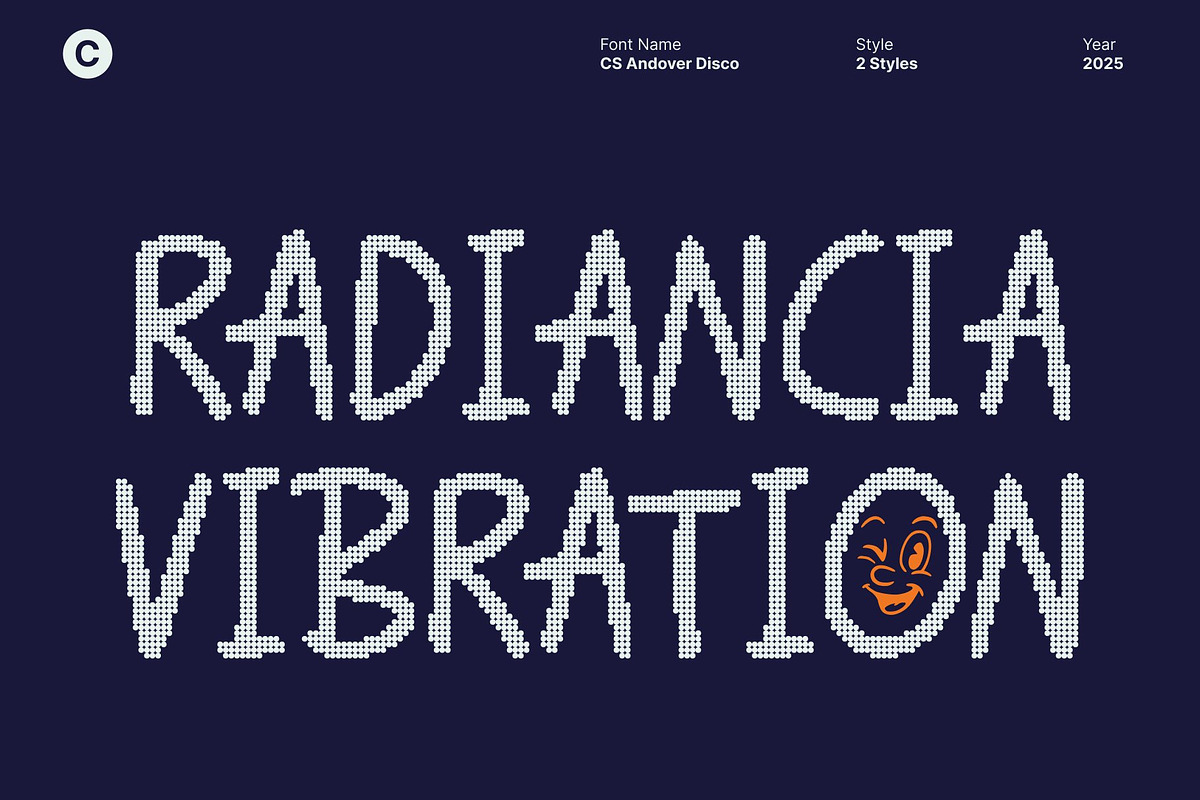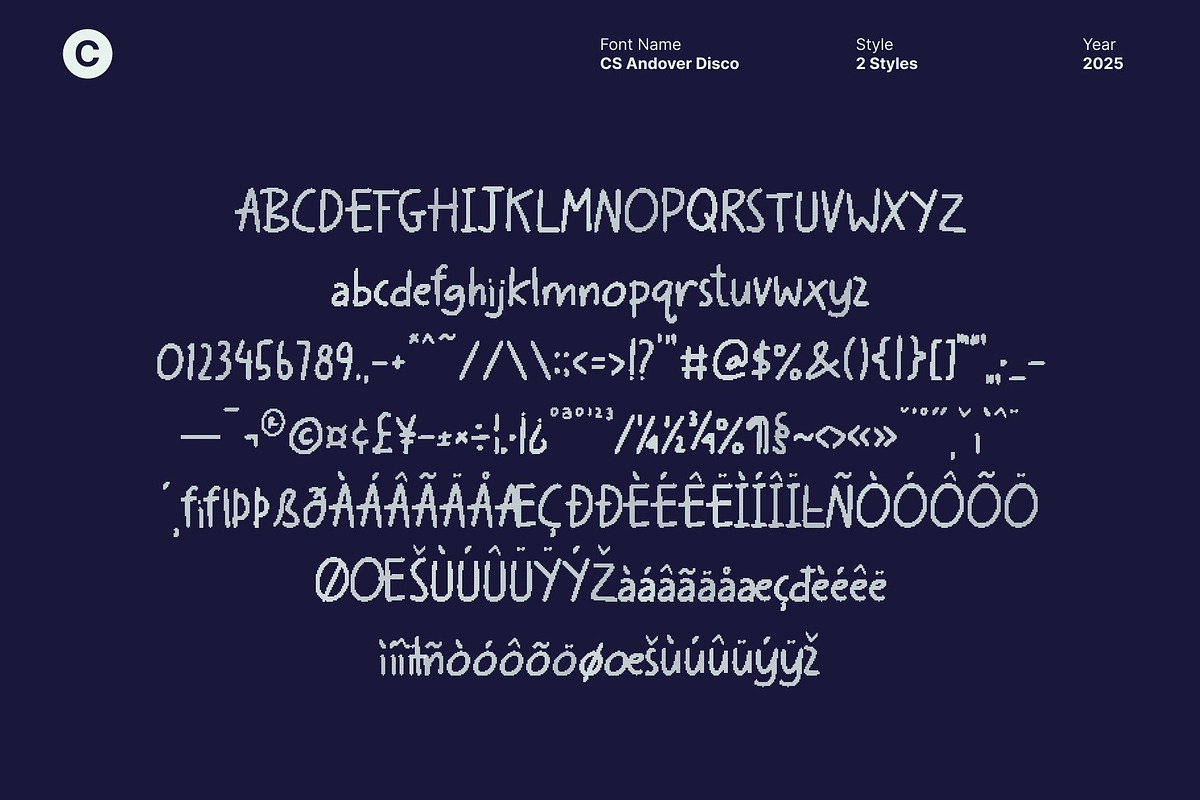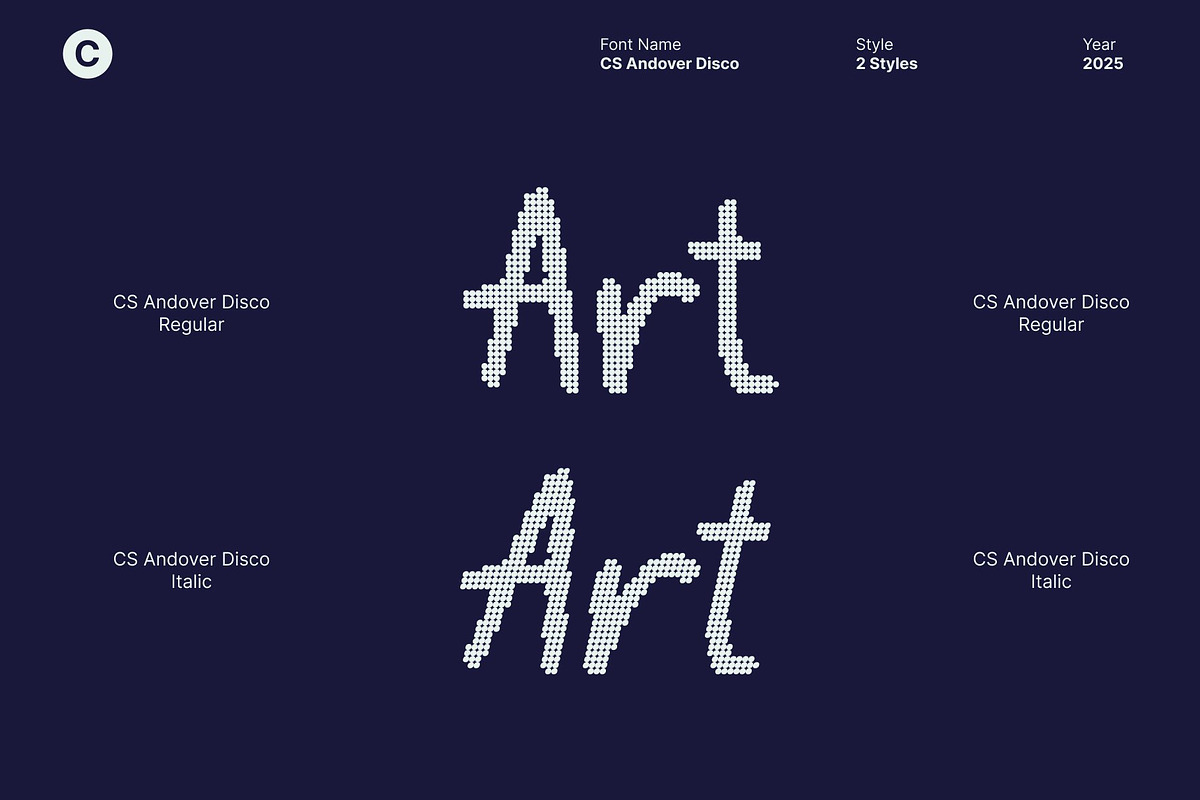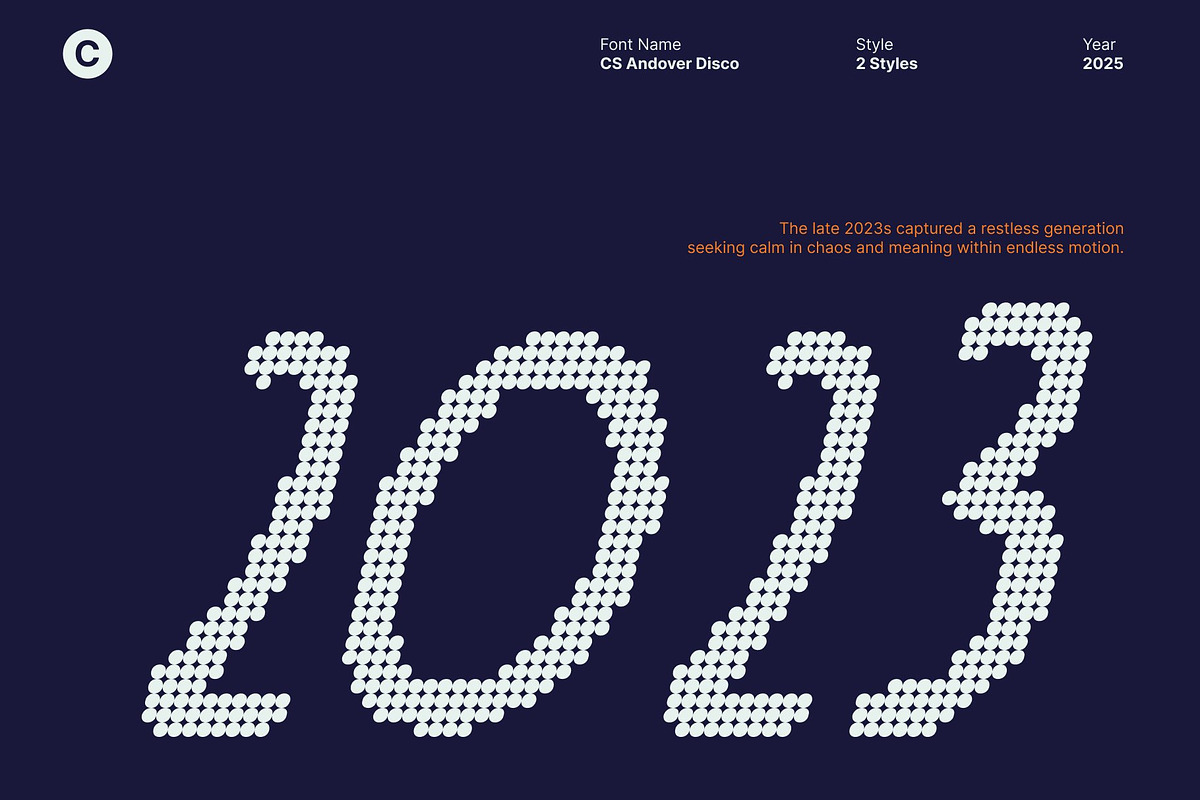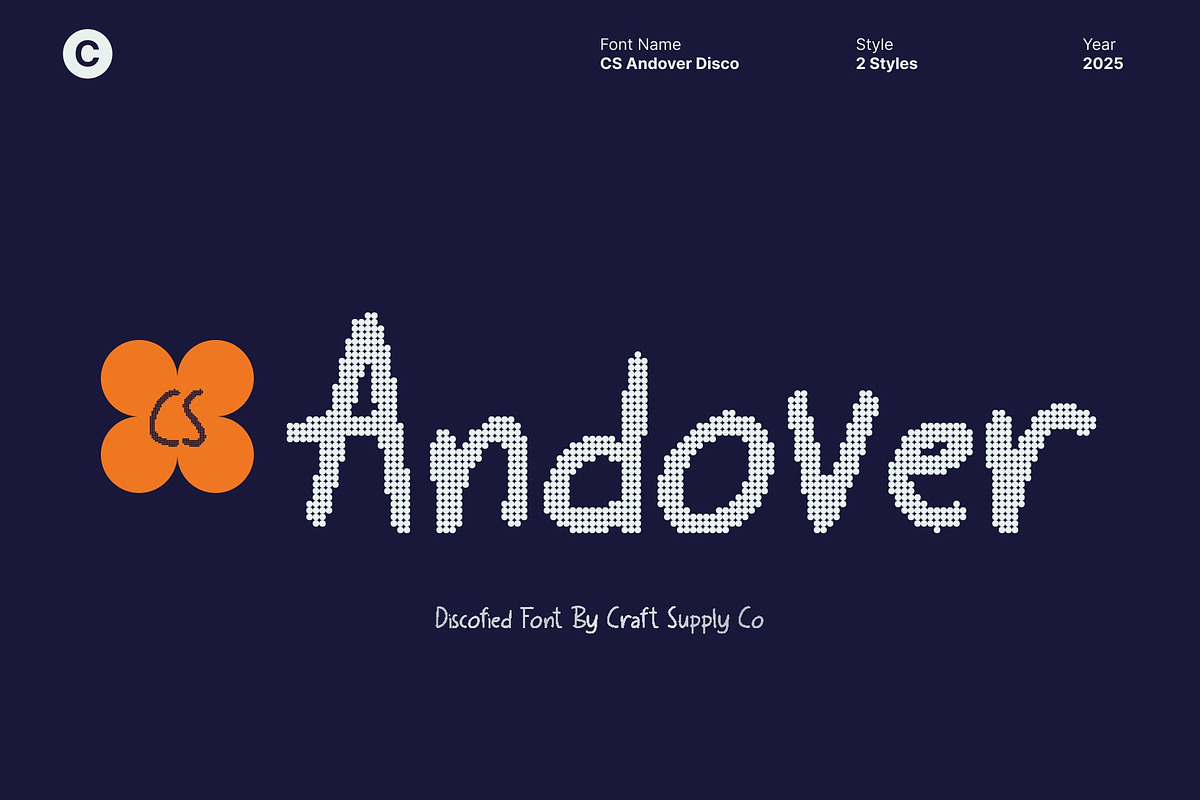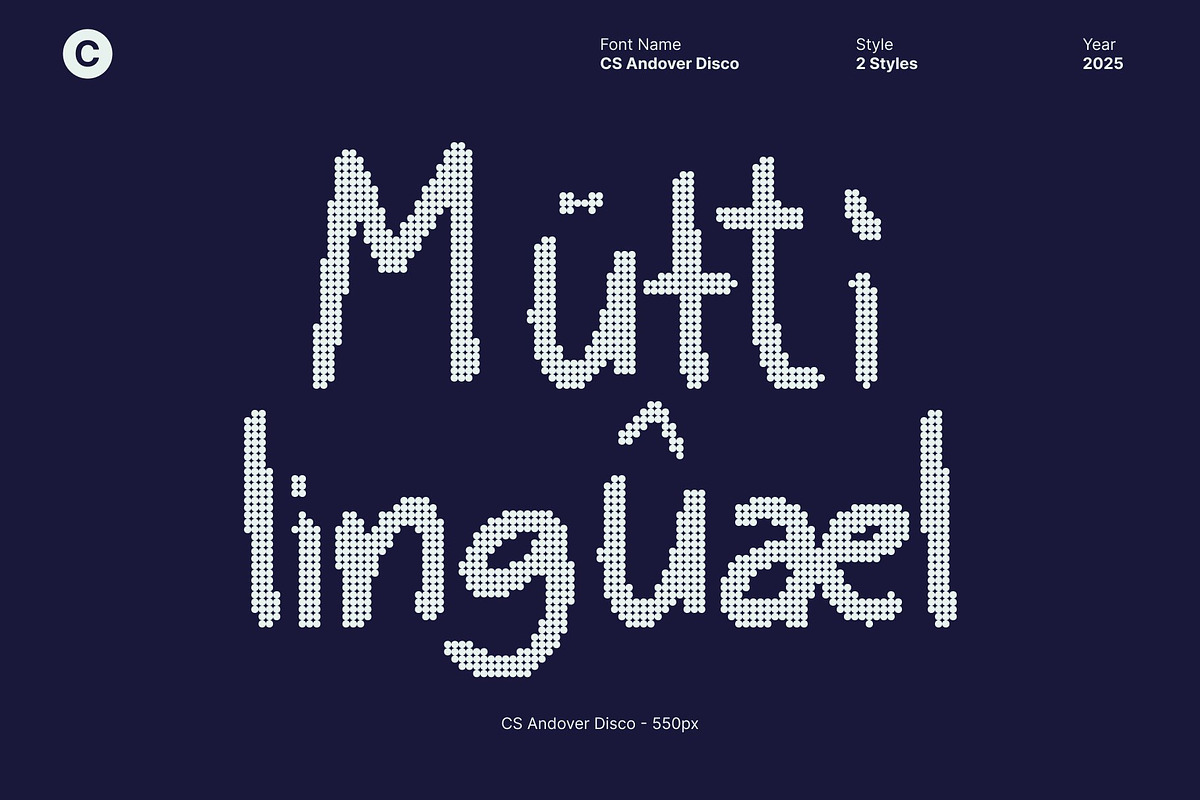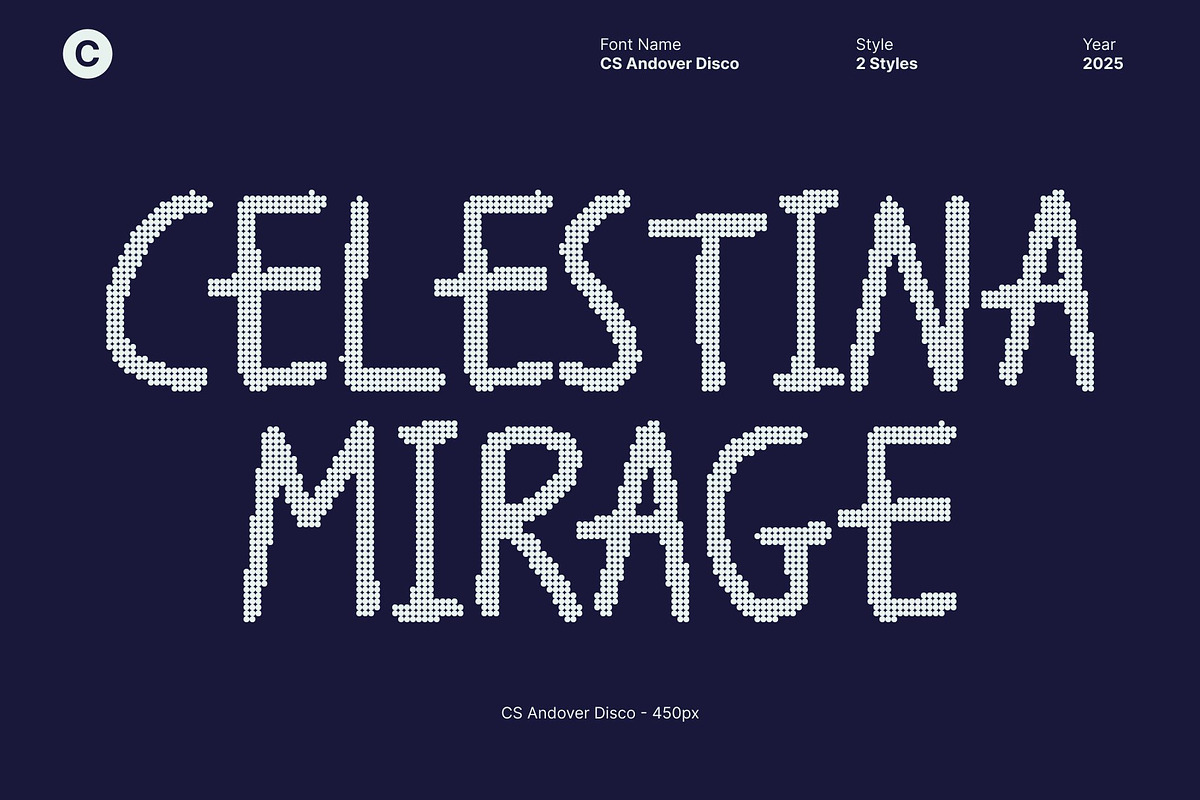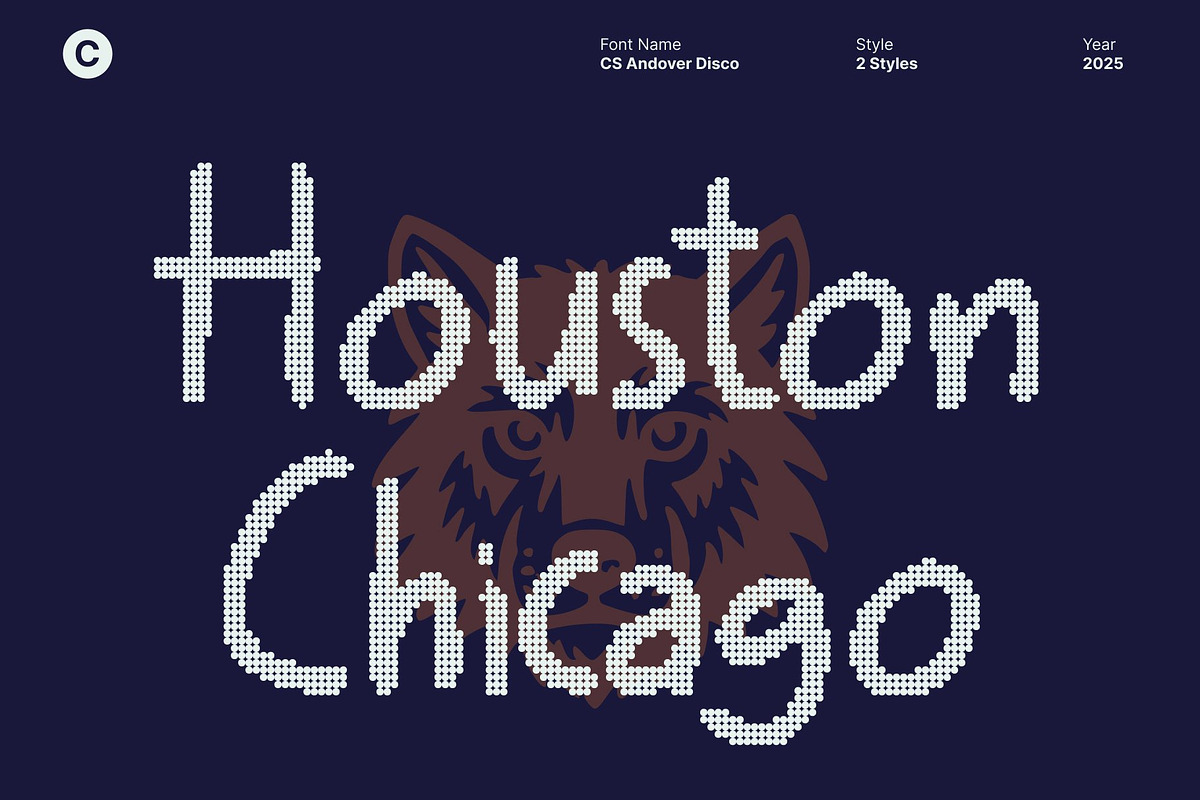
CS Andover Disco
CS Andover Disco – Handwritten Elegance with a Sparkling Touch
Expressive Handwritten Font with Disco Flair This combines natural sans serif handwritten beauty with a modern, shimmering twist. Its soft, flowing strokes capture the warmth and rhythm of authentic penmanship, while the disco inspired glow adds a radiant, contemporary edge that makes every word come alive.
Natural Flow for Genuine Expression Crafted to mirror graceful hand movements, each letter exudes personality, charm, and emotion. This makes this font ideal for personal branding, quotes, invitations, and editorial layouts, giving your designs an elegant and heartfelt tone.
Disco Shine for Modern Glamour The disco effect enhances its smooth lines with a sparkly, luminous finish, bringing sophistication and liveliness to every curve. It’s a perfect choice for digital projects, modern branding, or festive party designs that call for both warmth and brilliance.
Versatile and Stylish for Every Occasion This font transitions effortlessly between casual charm and glamorous flair, making it a go-to font for designers seeking authenticity with a modern sparkle.
- CS Andover Disco Regular
- CS Andover Disco Italic